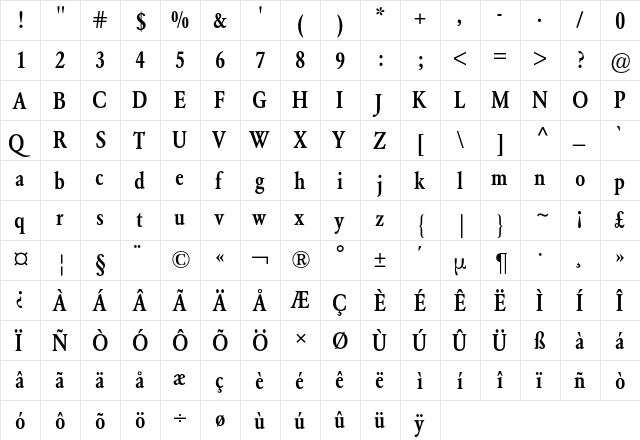
GaramondCondensedBQ Regular Font Preview
GaramondCondensedBQ Regular
GaramondCondensedBQ Regular Font Details
Design Context for GaramondCondensedBQ Typeface
GaramondCondensedBQ offers clean, dependable letterforms without strong stylistic allegiance, making it a practical choice for designers who need flexibility. Its narrow stance lets it pack a punch even in space-constrained designs.
Pro Tip: Pair GaramondCondensedBQ with a font of contrasting weight or personality to build a more expressive typographic hierarchy.